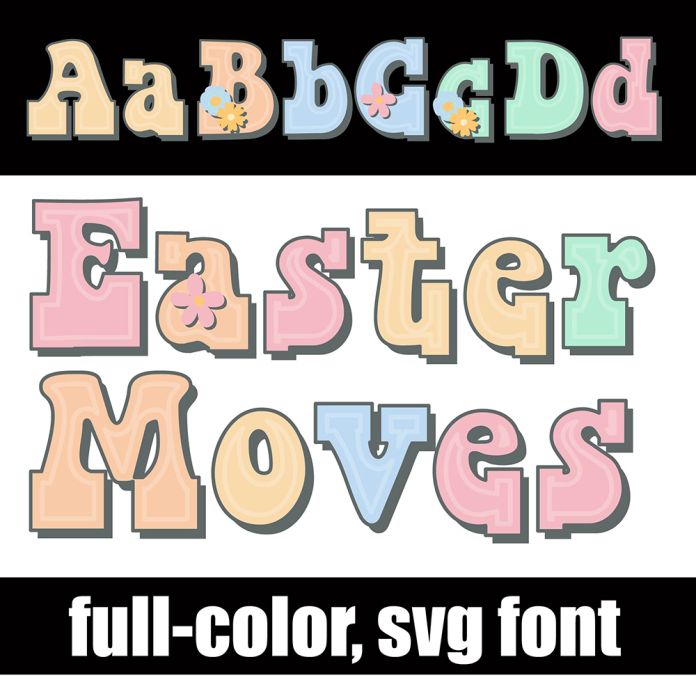
This full-color font features simple, pastel-colored, serif font brimming with florals. There is an alt case with an additional color of each letter. This font works best for titles, displays, posters and more. Please note color fonts will show as black in non compatible programs. This font type is compatible with Silhouette Studio.